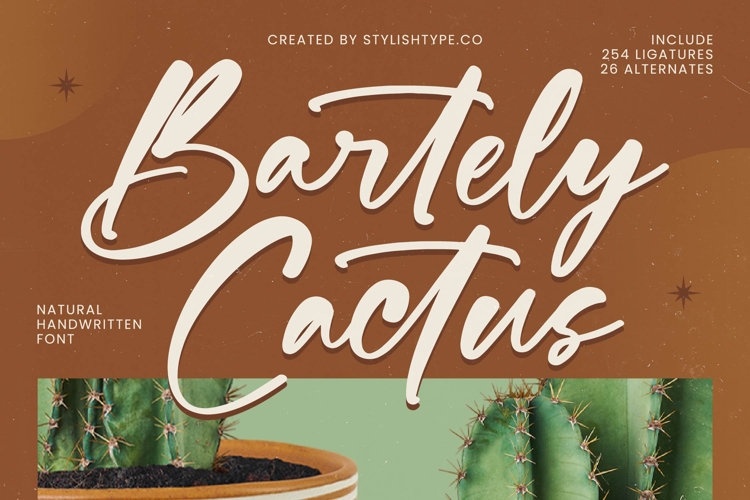
Bartely Cactus - Natural Handwritten Font
Elevate your designs with the captivating charm of a truly authentic script font. Introducing Font Bartely Cactus - Natural Handwritten Font Script, a masterful creation that exudes warmth, spontaneity, and a handcrafted elegance. Its flowing strokes and organic curves perfectly capture the essence of a natural, touch, making every word resonate with inviting character and understated sophistication. This font is designed to instantly add a genuine, human feel to any creative endeavor.
Unlock unparalleled design versatility and global reach with Font Bartely Cactus - Natural Handwritten Font Script. Featuring an impressive collection of 254 ligatures and 26 alternates, this font offers extensive customization options, allowing you to craft truly unique typographic expressions and avoid repetitive letterforms. With its extensive multilingual support, Font Bartely Cactus - Natural Handwritten Font Script adapts seamlessly across global markets, making it incredibly versatile for international projects and ensuring your message connects universally.